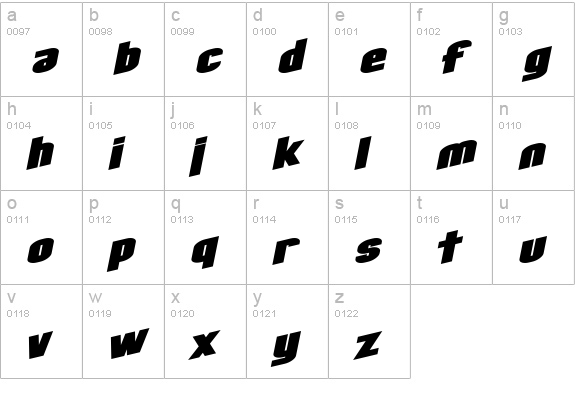
SF Obliquities Extended Bold Font Details
SF Obliquities Extended Bold is a strong, high-contrast, extended-width variant in the SF typeface family \xE2\x80\x94 well suited to headlines, attention-grabbing titles, and strong calls-to-action.
SF Obliquities Extended Bold is a remarkable font that effortlessly combines sleekness and boldness, making it perfect for any design project that requires a touch of modernity and sophistication. With its distinct oblique angles and extended letterforms, this font exudes a sense of dynamism and forward-thinking. Designed with meticulous attention to detail, SF Obliquities Extended Bold offers a wide range of uppercase and lowercase letters, numerals, punctuation marks, and special characters. Each glyph is meticulously crafted to ensure consistency and legibility, making it a versatile choice for both headlines and body text. What sets SF Obliquities Extended Bold apart is its availability as a free download at FontsMarket.com. This means that designers, creatives, and enthusiasts alike can freely access and utilize this stunning font in their projects, without any hesitation or limitations. Whether you are working on branding materials, editorial layouts, web designs, or any other creative endeavor, SF Obliquities Extended Bold will undoubtedly elevate your work to new heights. Its bold and modern appearance will instantly capture attention and convey a sense of professionalism and innovation. With SF Obliquities Extended Bold, you have the freedom to explore your creativity and experiment with various design elements. This font is not only aesthetically pleasing but also highly versatile, allowing you to easily adapt it to suit your unique style and vision. So why wait? Enhance your design projects with the captivating SF Obliquities Extended Bold font, available for free download at FontsMarket.com. Embrace the freedom to create stunning designs that leave a lasting impression.